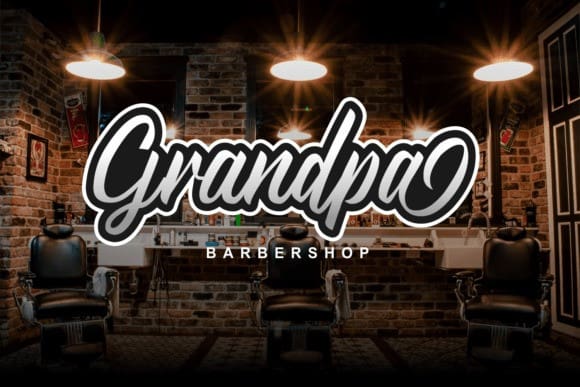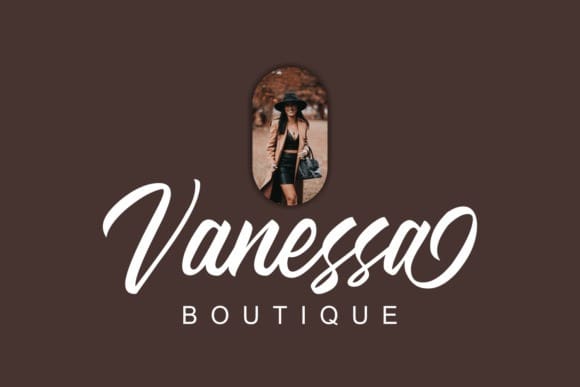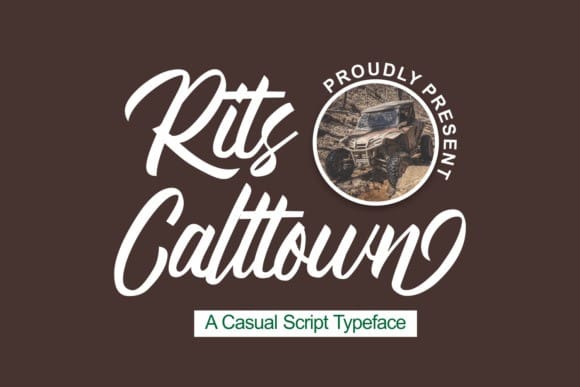
Rits Calltown Font
Rits Calltown Font is a flowing handwritten font, described by an elegant touch, perfect for your favorite projects. Fall in love with its incredibly distinct and timeless style and use it to create spectacular designs!